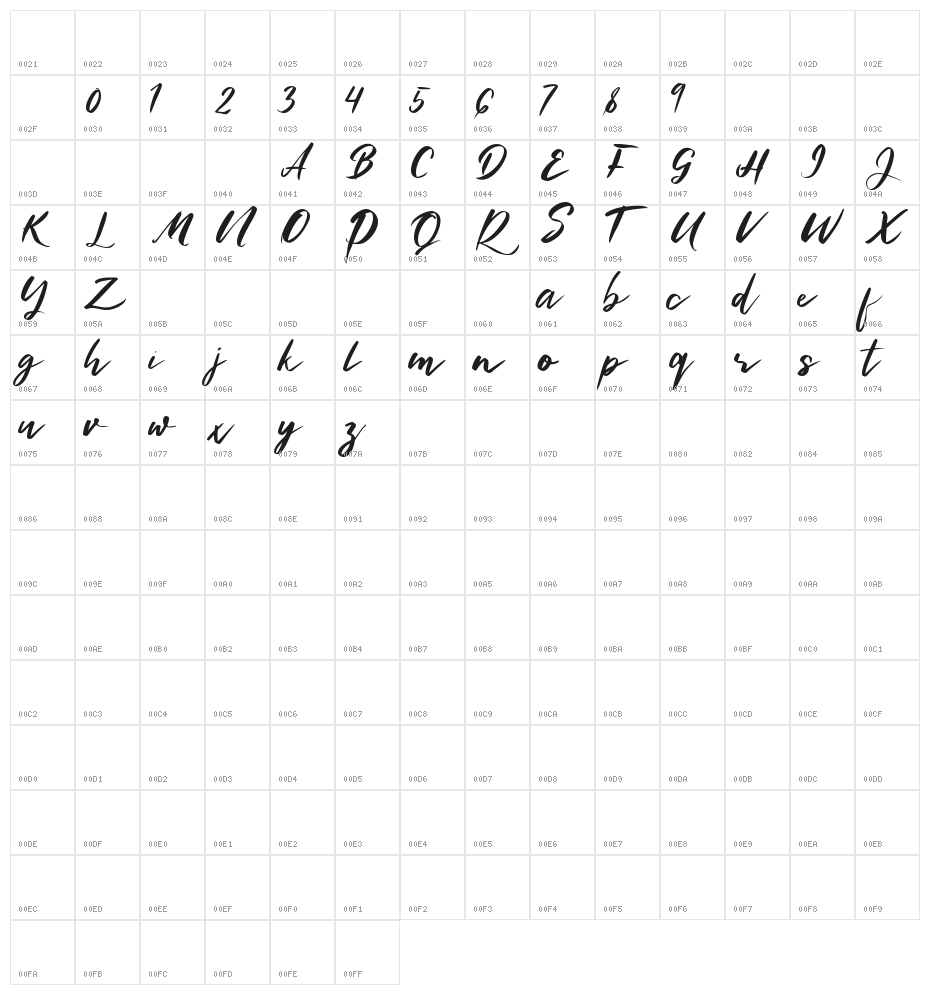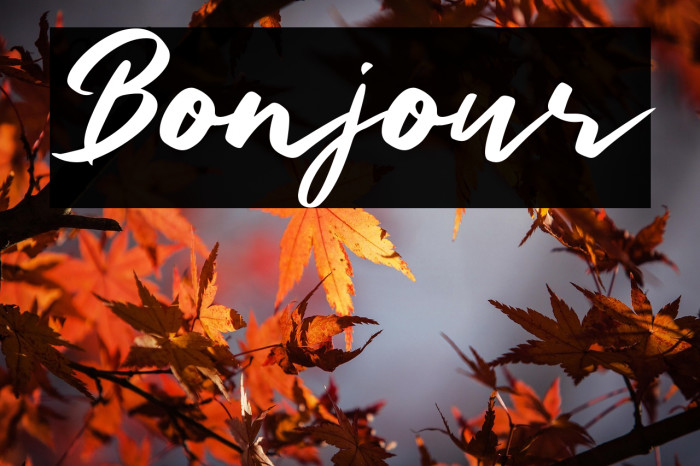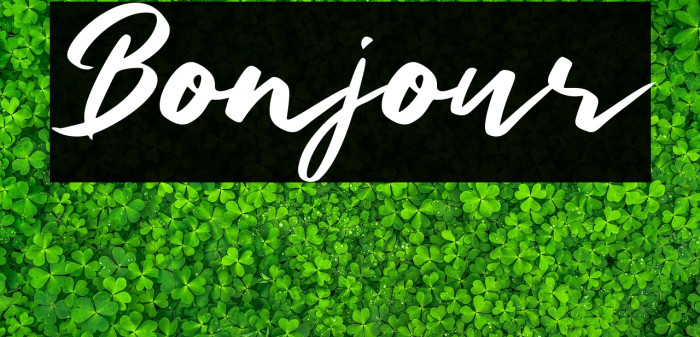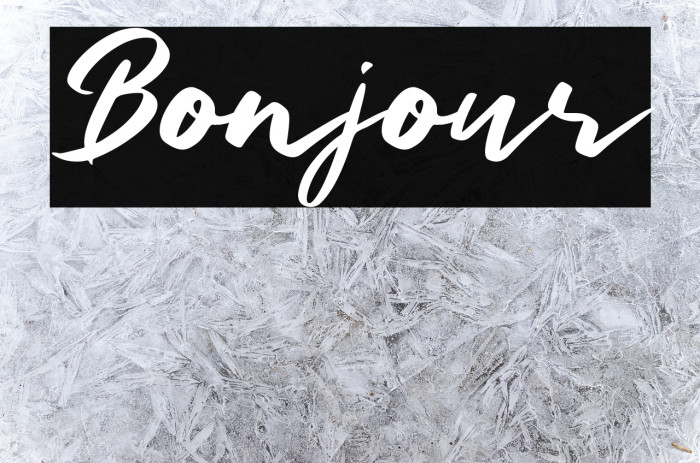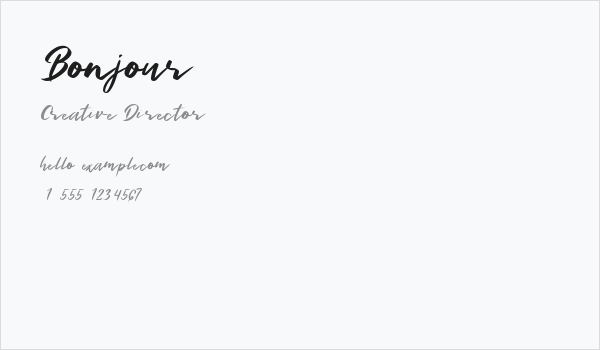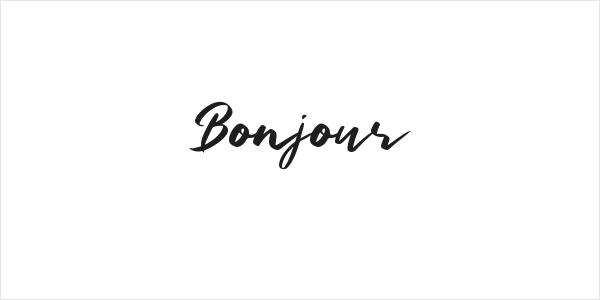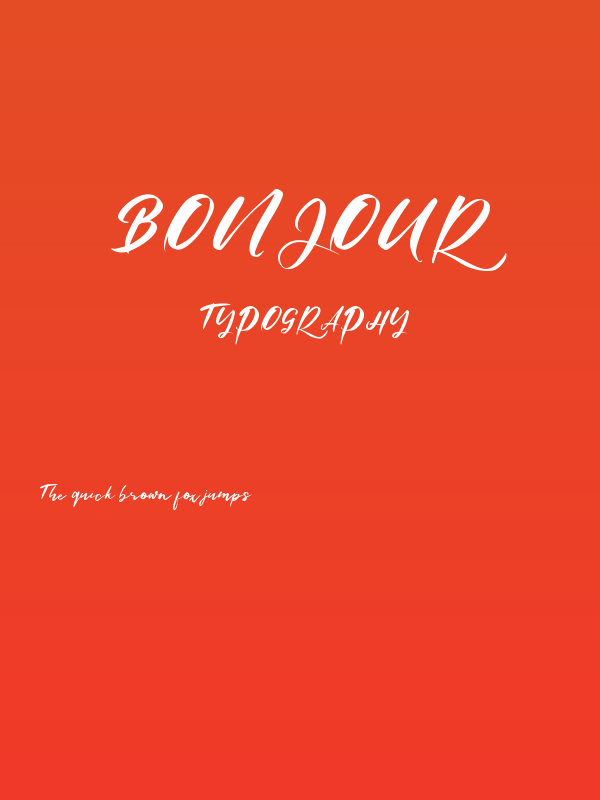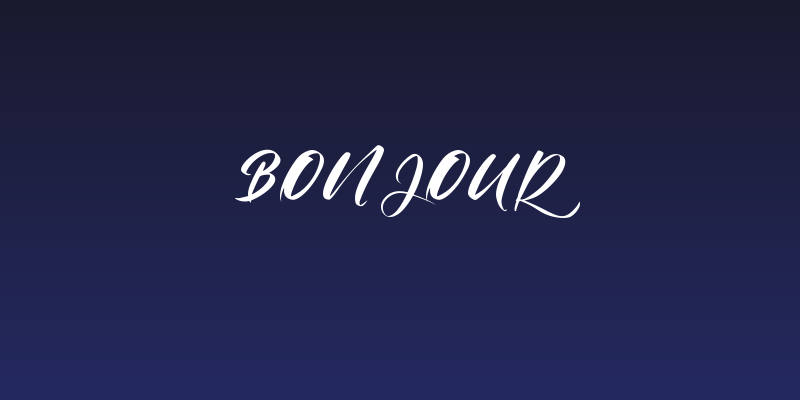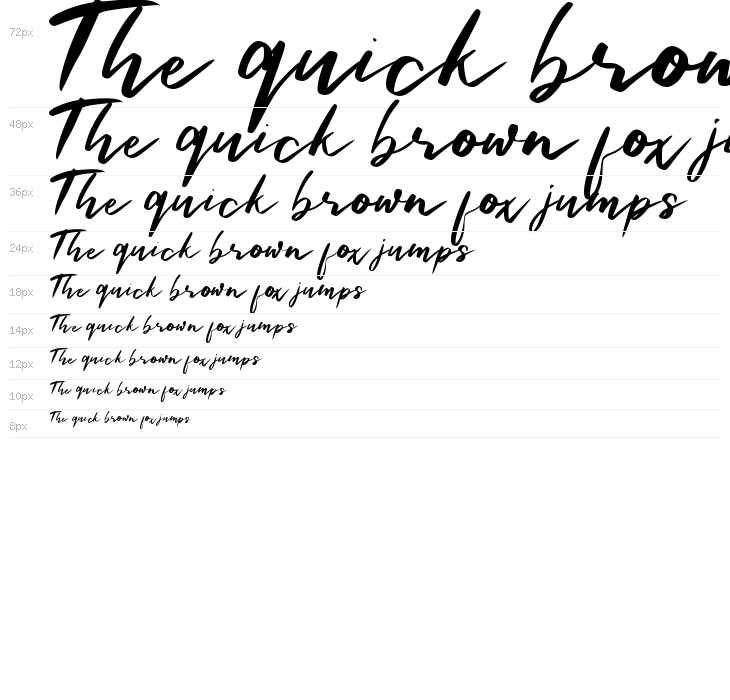
Bonjour Font
Bonjour Description
This font features a dynamic and expressive script style, characterized by fluid, sweeping strokes that convey a sense of elegance and movement. The letters are interconnected, with varying thickness that adds a lively rhythm to the text. The uppercase letters are bold and prominent, while the lowercase letters maintain a consistent flow, enhancing readability. The numerals and special characters are crafted with the same attention to detail, ensuring a cohesive look across all elements. This font's artistic flair makes it suitable for creative and decorative applications.